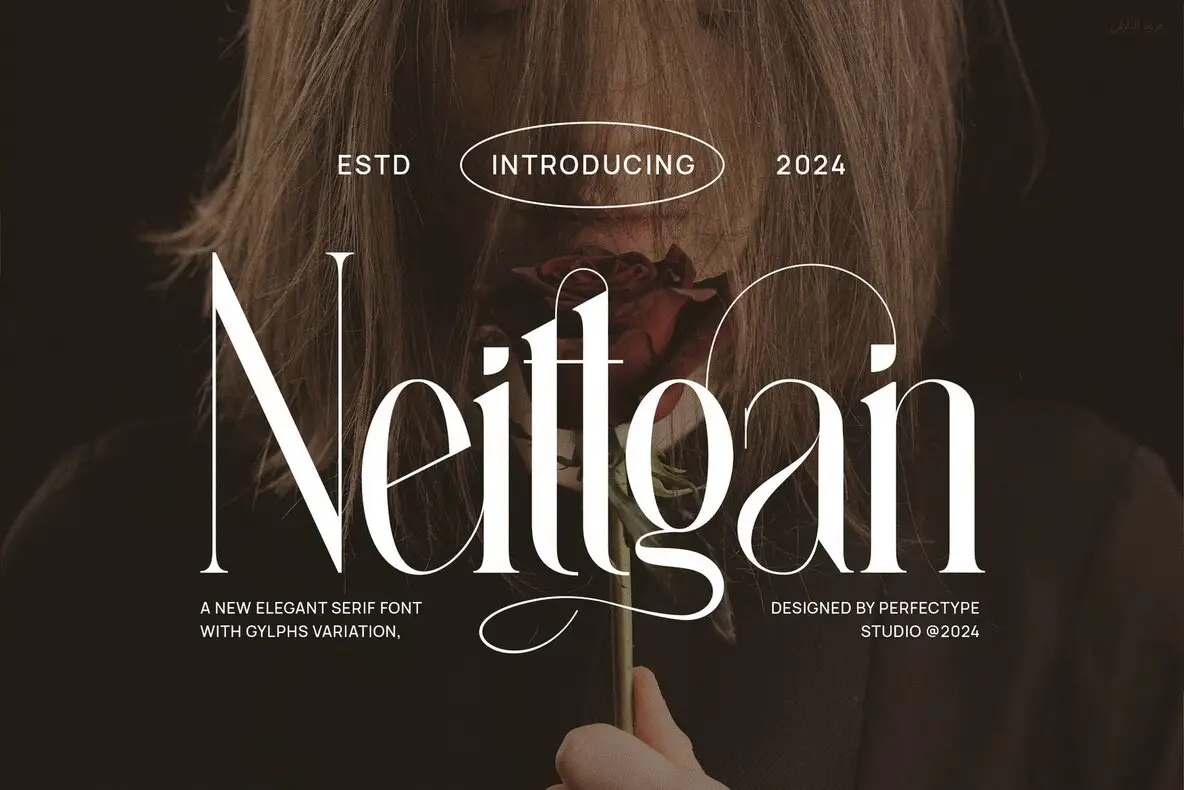
Neittgan Font
expand_font Neittgan Font Discover Neittgan Elegant Serif Font: A refined, modern typeface blending sophistication with contemporary style. Ideal for luxury branding and... SKU T27100 Serif,High Contrast,Luxury,Elongated,Fashion,Sophisticated,Tall Explore Exceptional Fonts for Digital and Traditional Media Fontpath offers a large variety of fonts for every designer, all at affordable prices and in multiple formats. Browse our best in class fonts today for all your creative needs, you can find everything you need right here at our site! Fonts,sans,sans serif,retro,script,decorative,title,FontPath 20140312040223 Fontpath offers 200,000+ of the most professional fonts found online, start downloading today! Real-Time Font Discovery at Fontpath